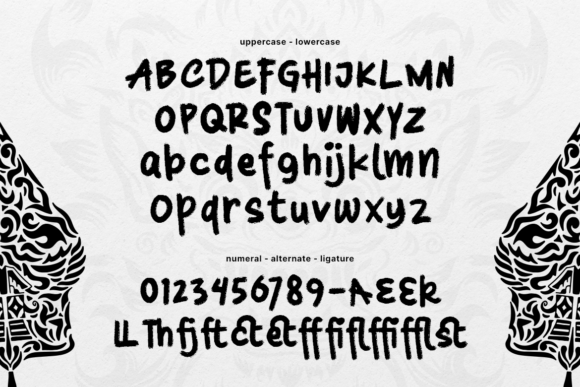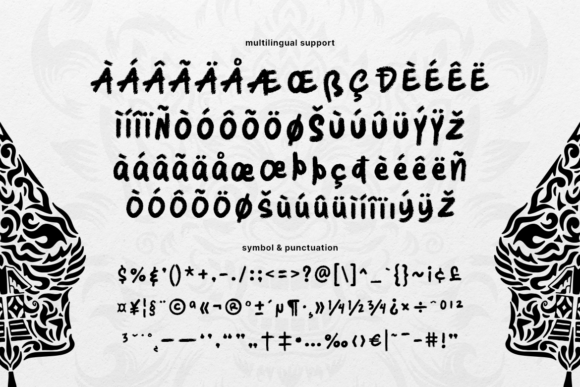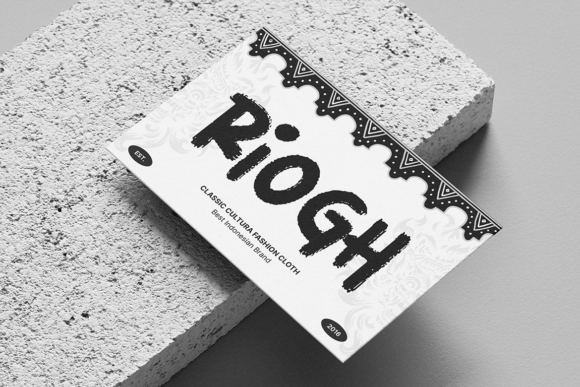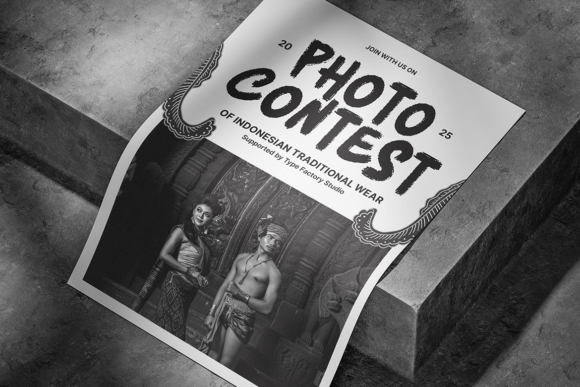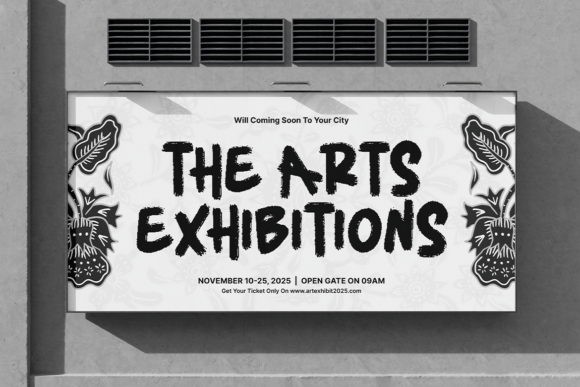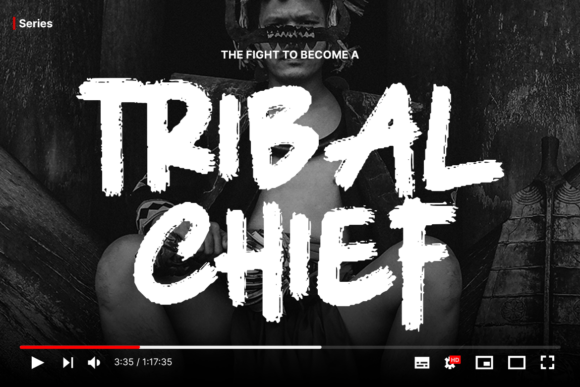
Cultura Font: A Brush Display Typeface for Impactful Typography
In the world of typography, a font can make or break the visual identity of a design. For designers and crafters looking for a typeface that exudes personality and flair, Cultura Font is an excellent choice. This brush display typeface is built with rough, textured strokes and hand-drawn character forms, giving it a unique and expressive feel.
The Characteristics of Cultura Font
Cultura Font is designed primarily for headlines and statement text, making it perfect for large-scale typography. The uneven edges and organic rhythm of the letters give them a strong visual presence, making them effective for grabbing attention. The font’s structure is optimized for impactful titles rather than long paragraph settings, making it ideal for designs that require a bold and expressive typography.
What Makes Cultura Font Special?
So, what sets Cultura Font apart from other typefaces? Here are a few key features that make it a standout:
- Uppercase and Lowercase Characters: Cultura Font includes both uppercase and lowercase characters, giving designers the flexibility to create visually appealing and balanced text.
- Numerals, Punctuation, and Ligatures: The font also includes numerals, punctuation, and ligatures, making it a comprehensive and versatile typeface.
- Multilingual Support: Cultura Font supports multiple languages, making it a great choice for designers working on international projects.
Use Cases for Cultura Font
Cultura Font is perfect for a variety of design applications, including:
- Cultural Event Posters: The font’s bold and expressive typography makes it ideal for posters and flyers promoting cultural events, such as concerts, festivals, and exhibitions.
- Exhibition Graphics: Cultura Font is also well-suited for exhibition graphics, including display text and signage.
- Music Artwork: The font’s musical, hand-drawn feel makes it a great choice for music artwork, such as album covers and music posters.
- Branding Materials: Cultura Font can be used to create bold and eye-catching branding materials, such as logos, business cards, and letterheads.
- Merchandise Design: The font’s unique and expressive feel makes it perfect for merchandise design, including t-shirts, mugs, and other promotional items.
- Social Media Visuals: Cultura Font can be used to create engaging and expressive social media visuals, such as Facebook and Instagram posts.
Tips for Using Cultura Font
To get the most out of Cultura Font, here are a few tips to keep in mind:
- Use it for Headlines: Cultura Font is designed primarily for headlines and statement text, so use it to create bold and eye-catching titles.
- Experiment with Colors: The font’s textured strokes and hand-drawn character forms make it perfect for experimenting with different colors and textures.
- Pair it with Other Fonts: Cultura Font can be paired with other fonts to create visually appealing and balanced text.
Cultura Font is a unique and expressive brush display typeface that is perfect for designers and crafters looking for a bold and eye-catching typography. With its rough, textured strokes and hand-drawn character forms, this font is sure to make a statement. Whether you’re working on a cultural event poster, exhibition graphics, music artwork, or social media visuals, Cultura Font is an excellent choice.